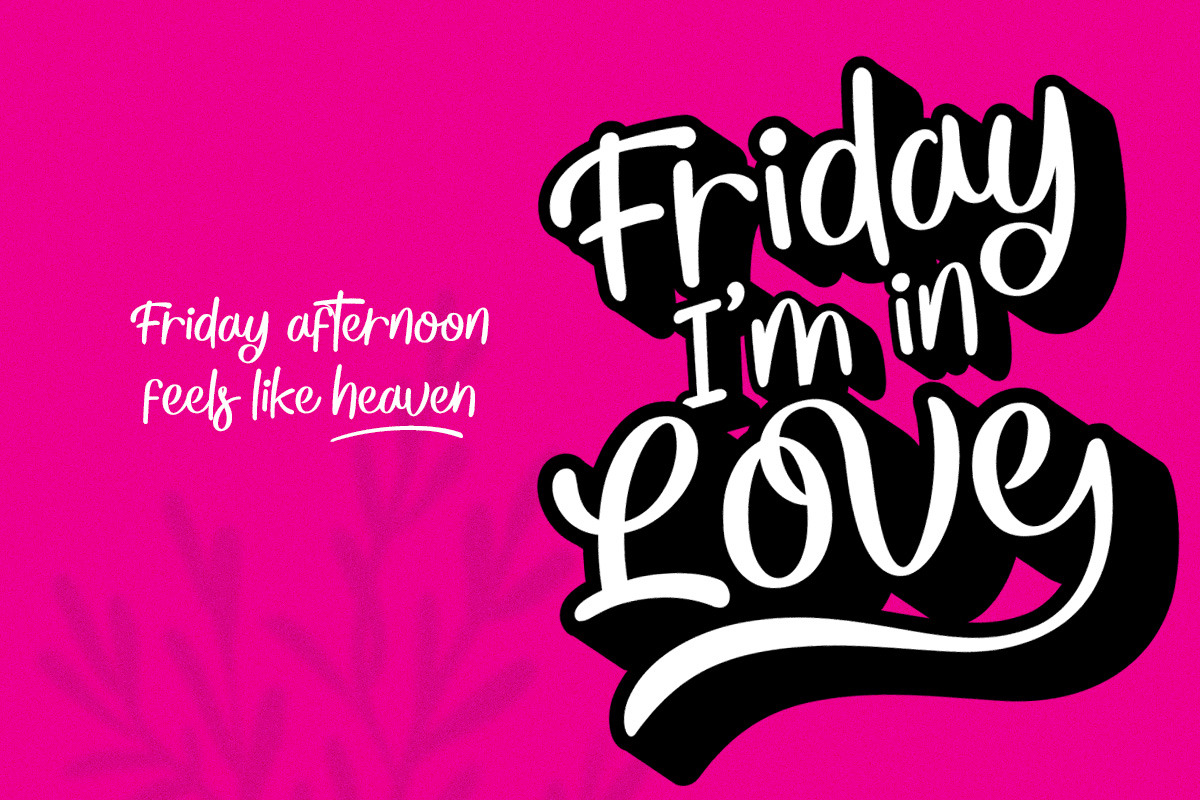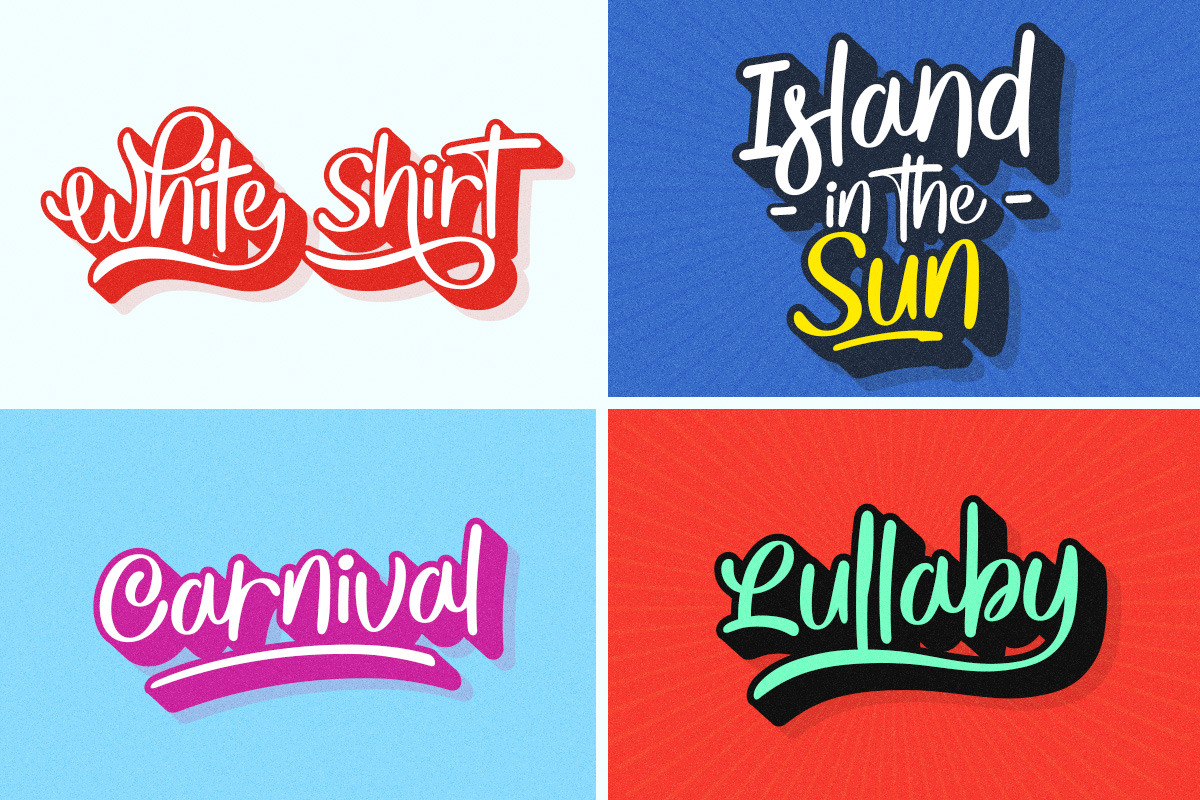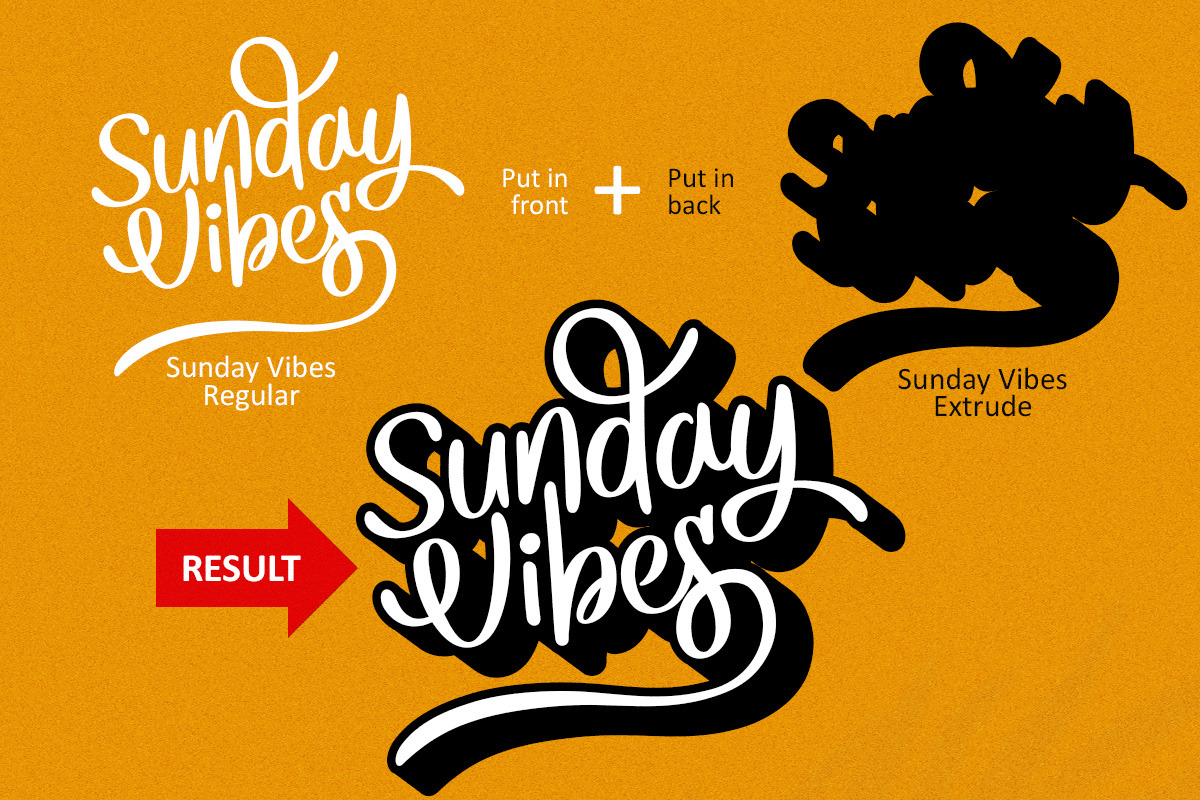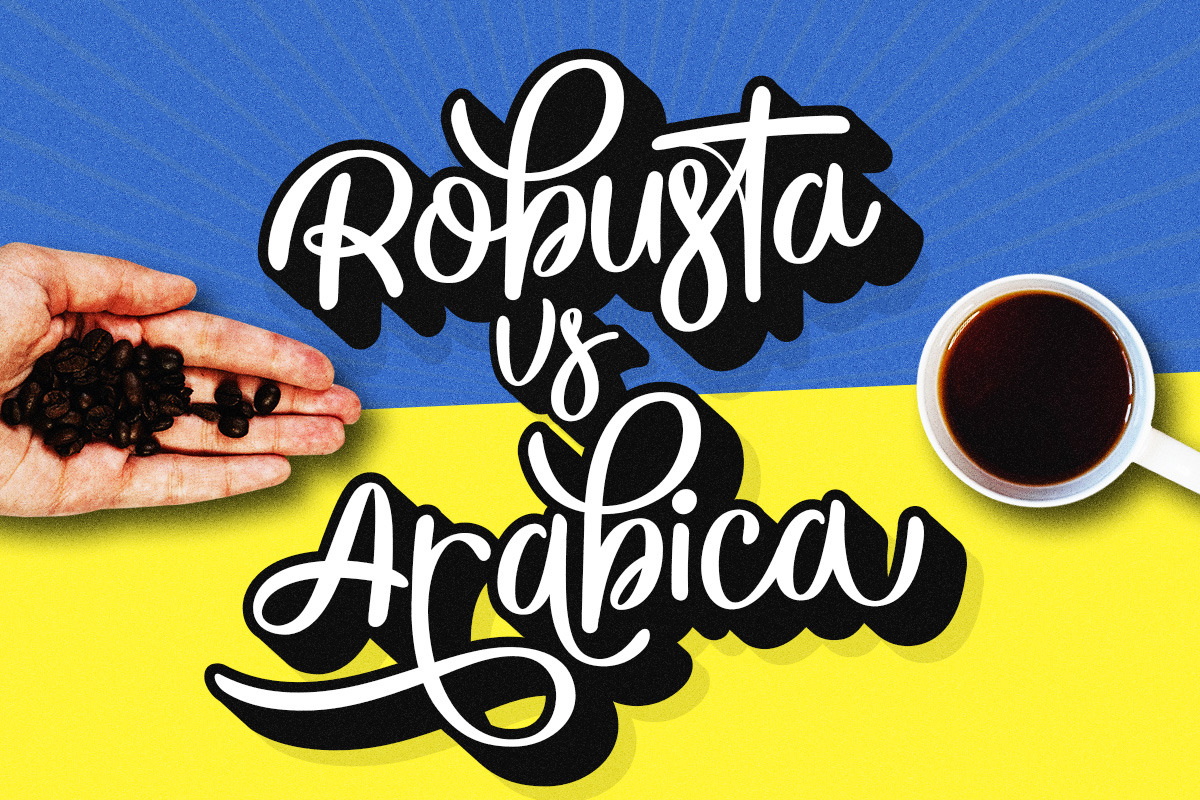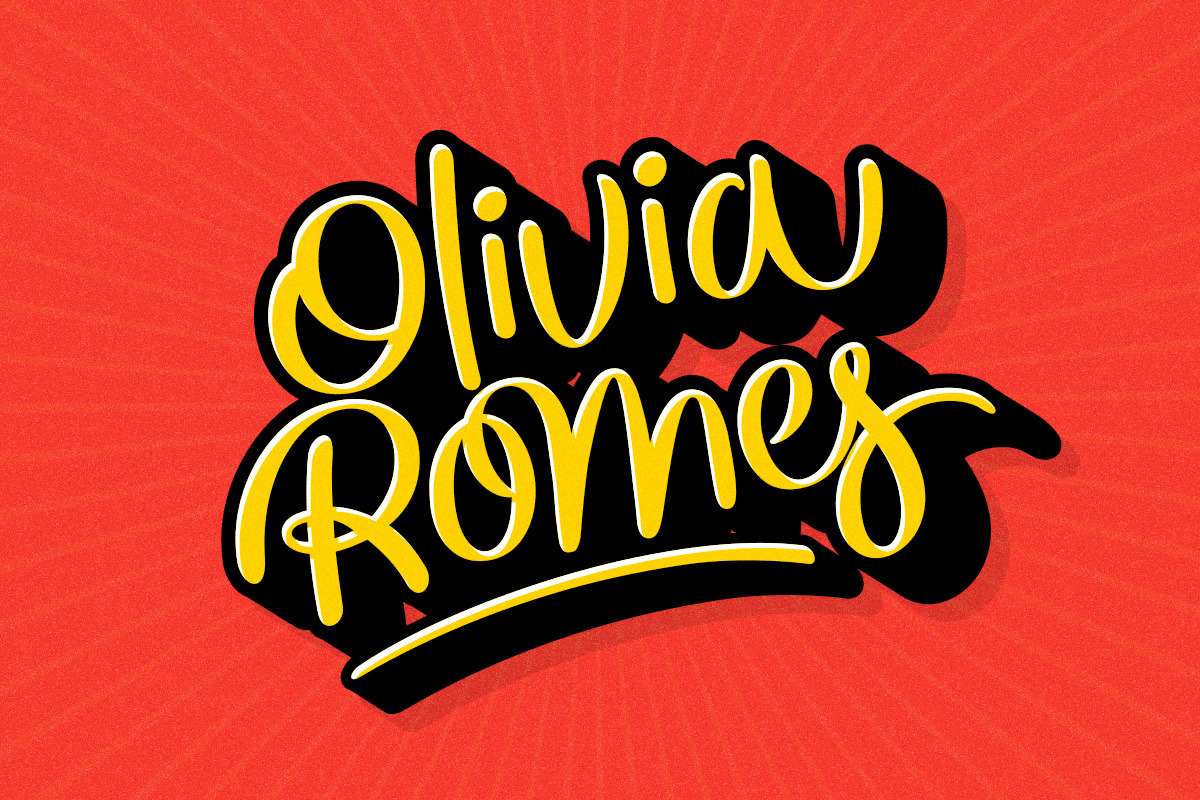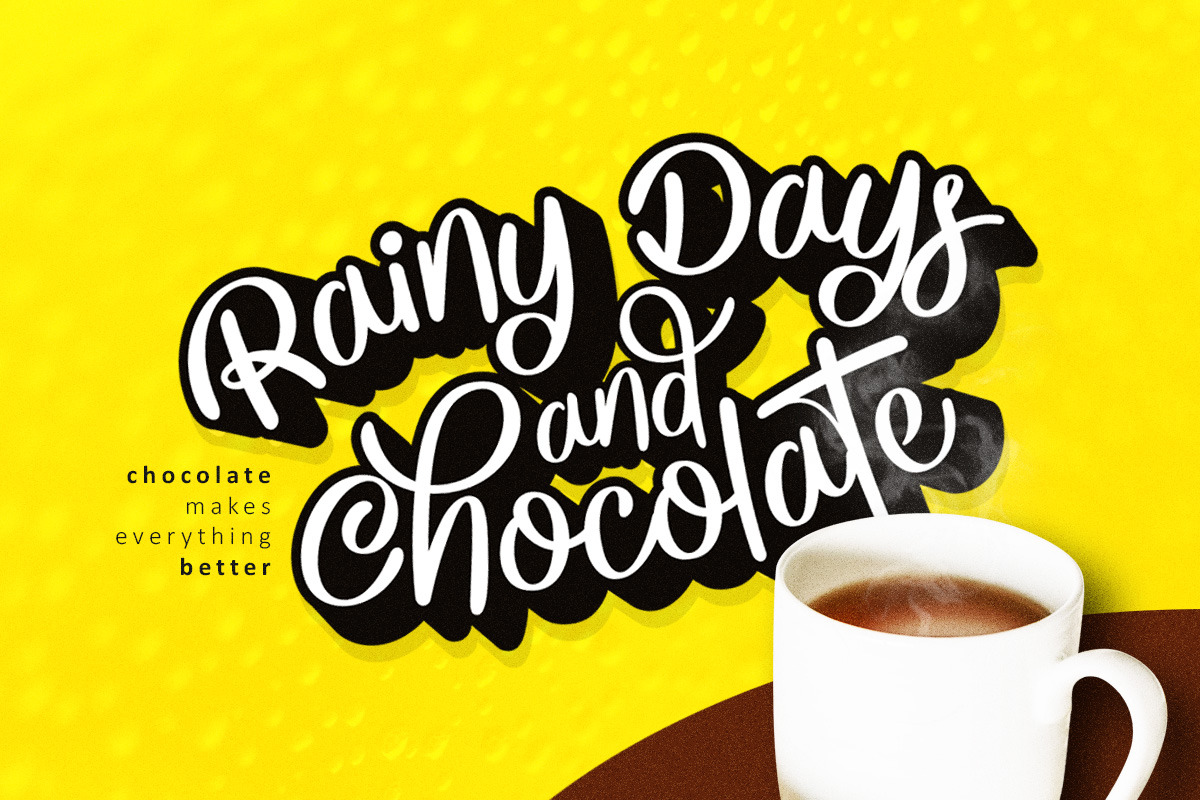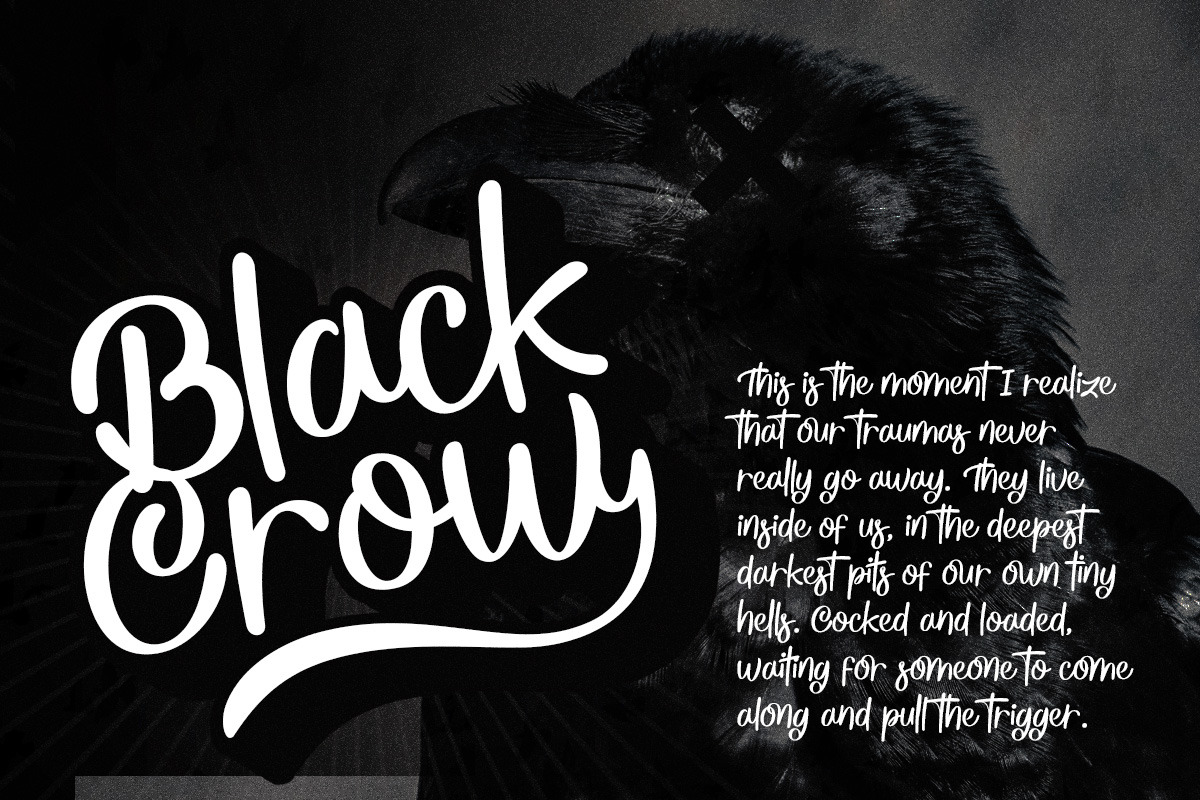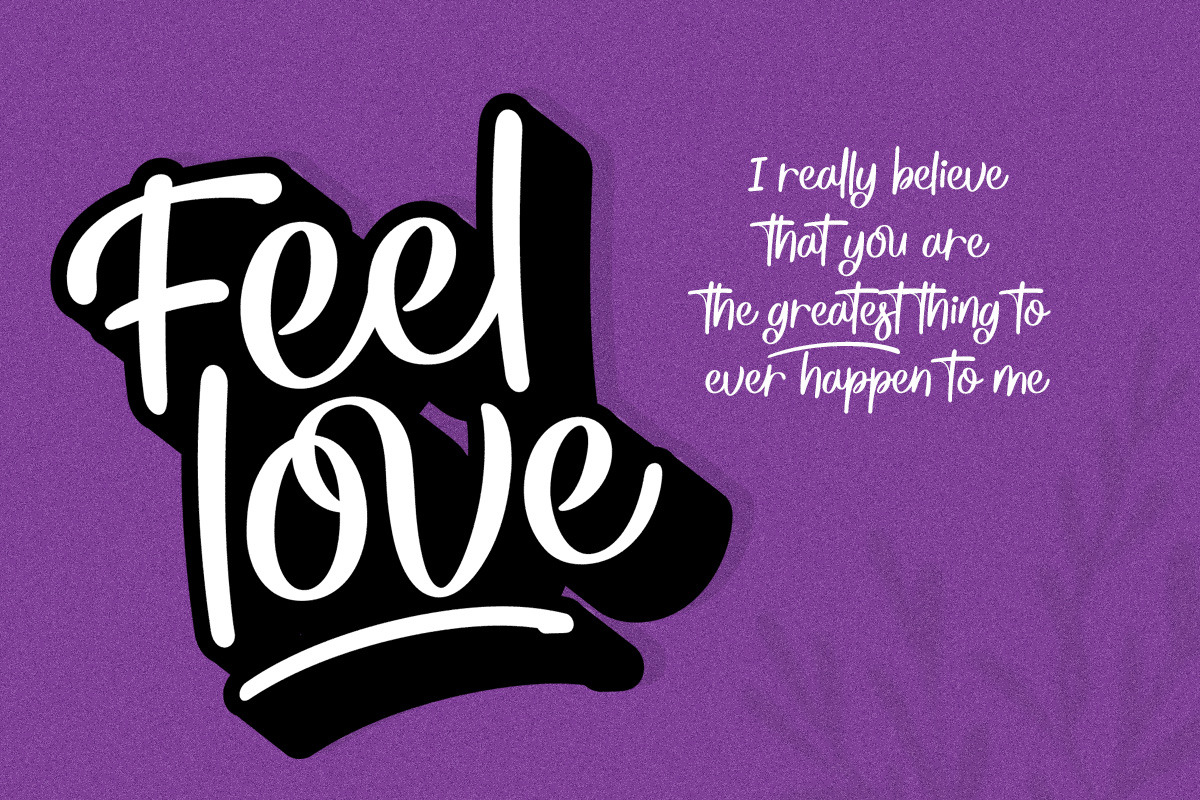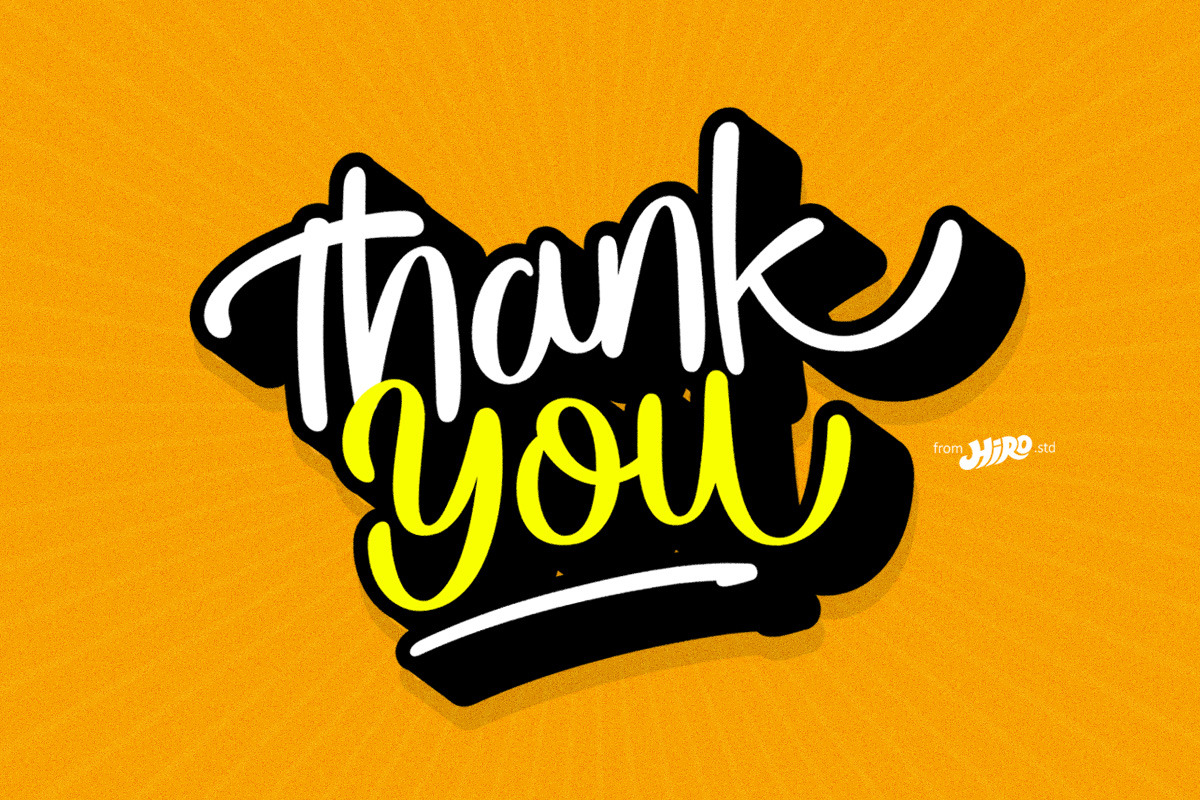
Sunday Vibes - Funky Script
Sunday Vibes is clean, bold, funky script.
This font describes about stylist, fun and elegant, catchy, dynamic, humanist, readable, easy to use and will bring a good harmony when the letters are connected and paired each other.
USE Sunday Vibes works great in any logotype, magazines, apparel, social media posts, advertisements, product packaging, product designs, label, and any projects that need funky script.